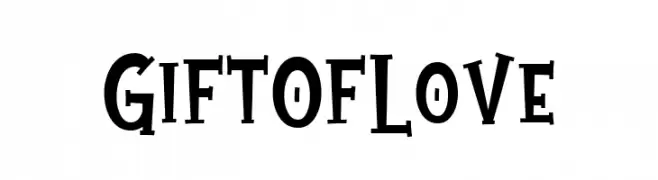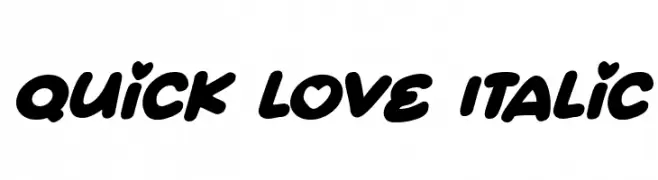
An elegant script font with flowing, cursive letterforms and decorative swashes.
A bold slab serif font with strong, block-like serifs and uniform stroke width.
A playful, bold font with a hand-drawn, whimsical style.
A playful, bold font with rounded, bubbly characters.
A bold, playful, handwritten-style font with rounded, italicized characters.
An elegant script font with decorative swashes and flowing curves.
A modern, geometric font with rounded edges and a clean, streamlined appearance.
A playful, hand-drawn font with bold, irregular characters and exaggerated serifs.
A playful, hollow decorative font with bold strokes and whimsical style.
A modern, light sans-serif font with a clean and elegant design.